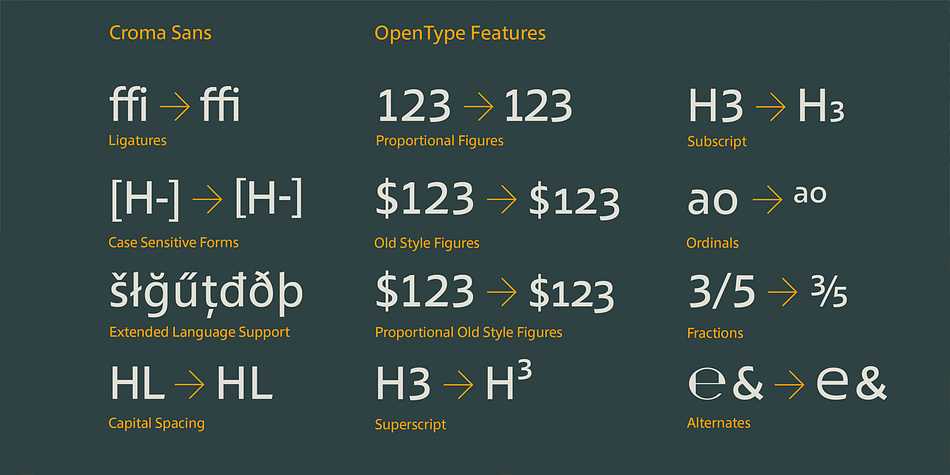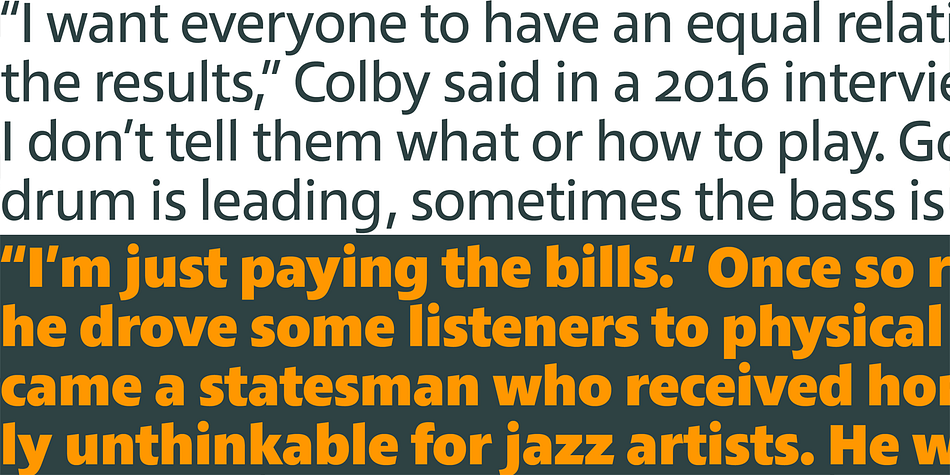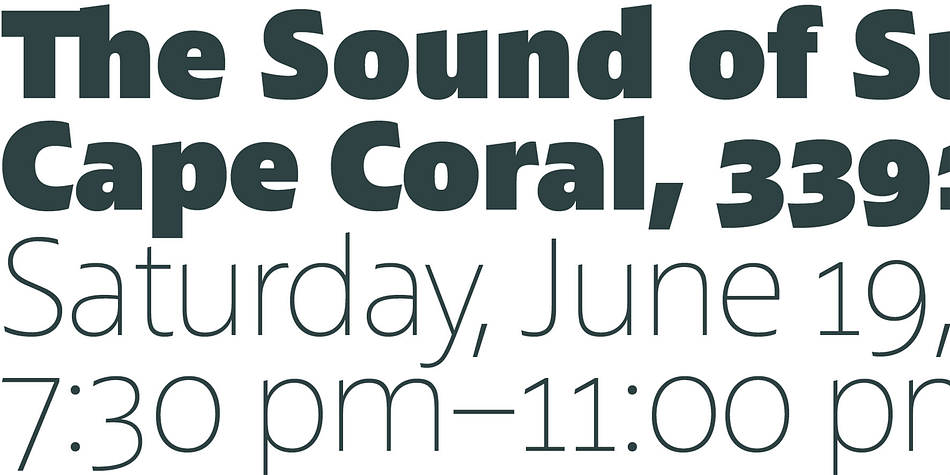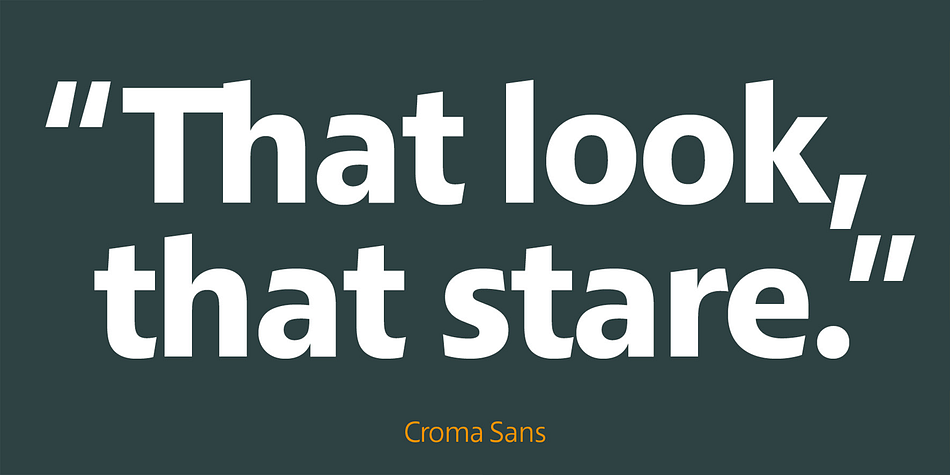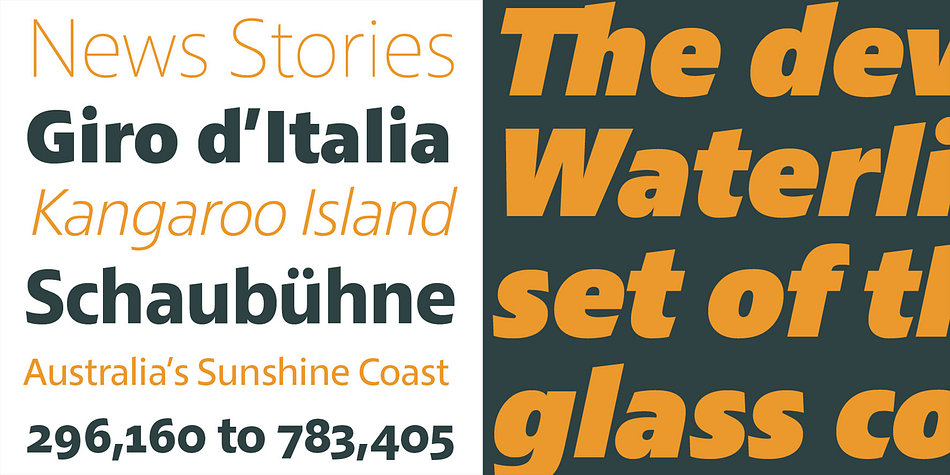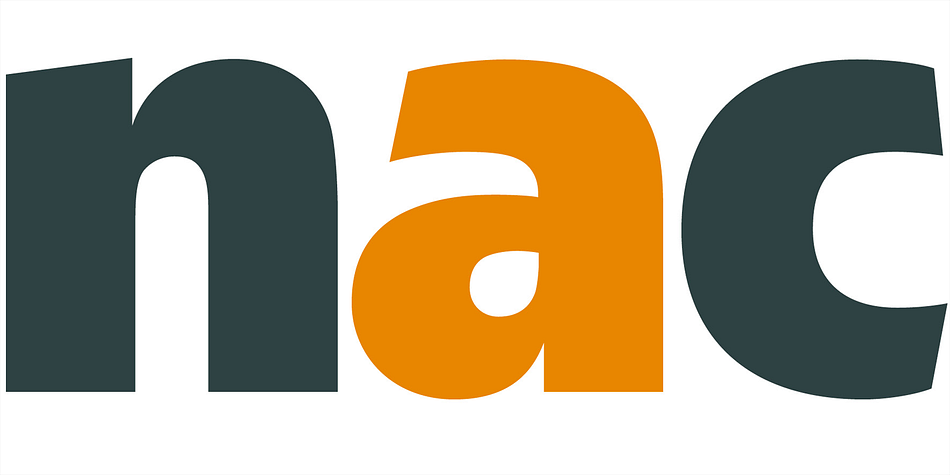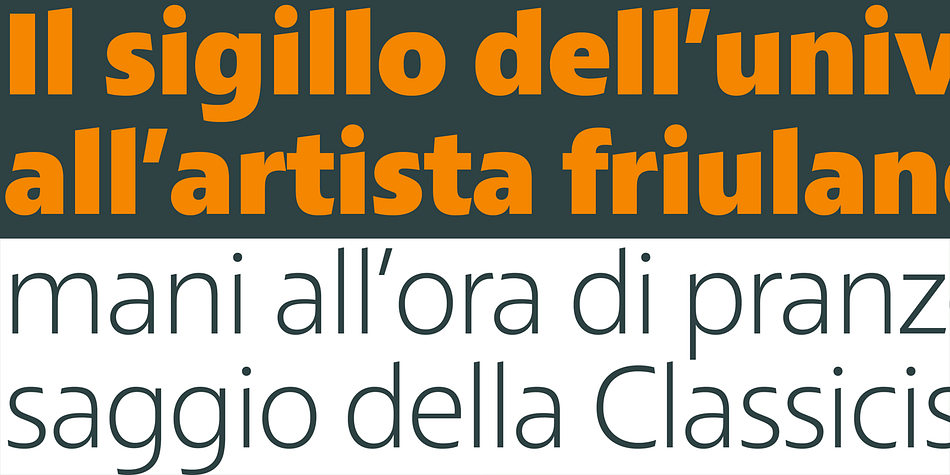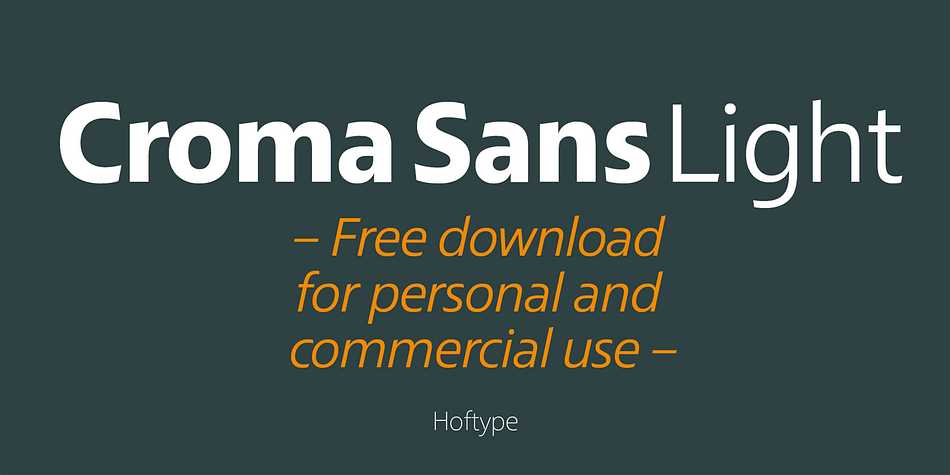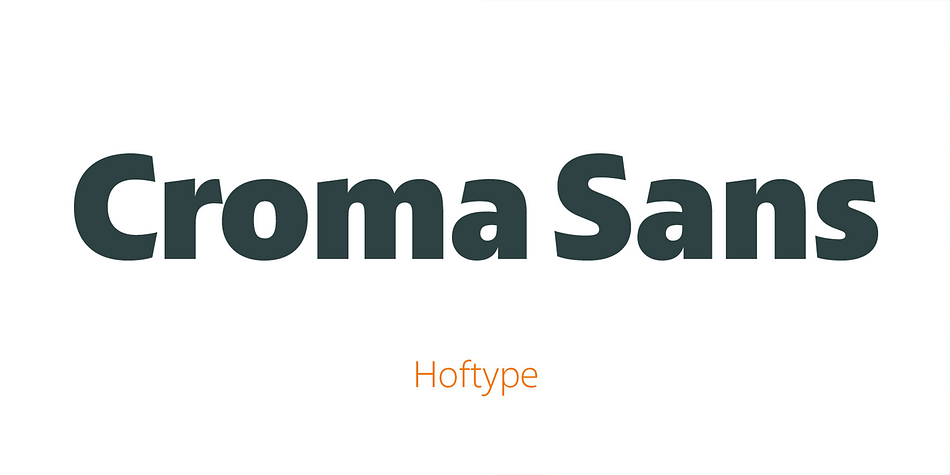
Designed by Dieter Hofrichter, Croma Sans is a sans serif font family. This typeface has sixteen styles and was published by Hoftype.
Croma Sans, created in 2016, is a linear sans with a controlled and distinct graphic flavour. The Croma Sans family consists of 16 styles and is well suited for ambitious typography. It comes in OpenType format with extended language support. All weights contain ligatures, proportional lining figures, tabular lining figures, proportional old style figures, lining old style figures, matching currency symbols, fraction- and scientific numerals and matching arrows.